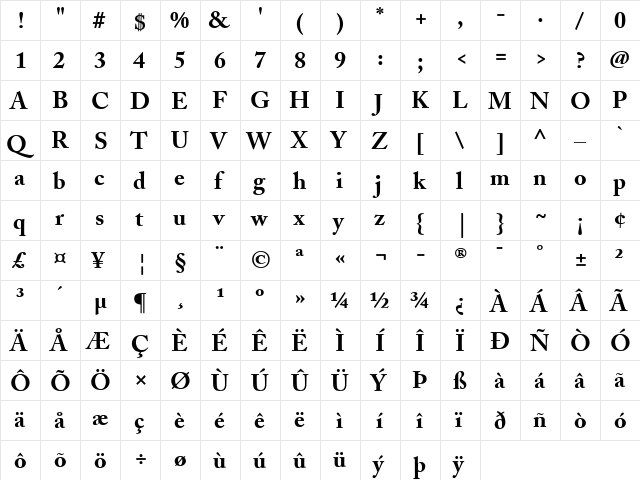
ACaslon Bold Regular
Design Context for ACaslon Bold Typeface
ACaslon Bold takes a measured approach to typography — its balanced proportions and neutral character make it a reliable workhorse for both digital and print work. Its bold stroke weight gives it real presence on the page.
Pro Tip: Pair ACaslon Bold with a font of contrasting weight or personality to build a more expressive typographic hierarchy.